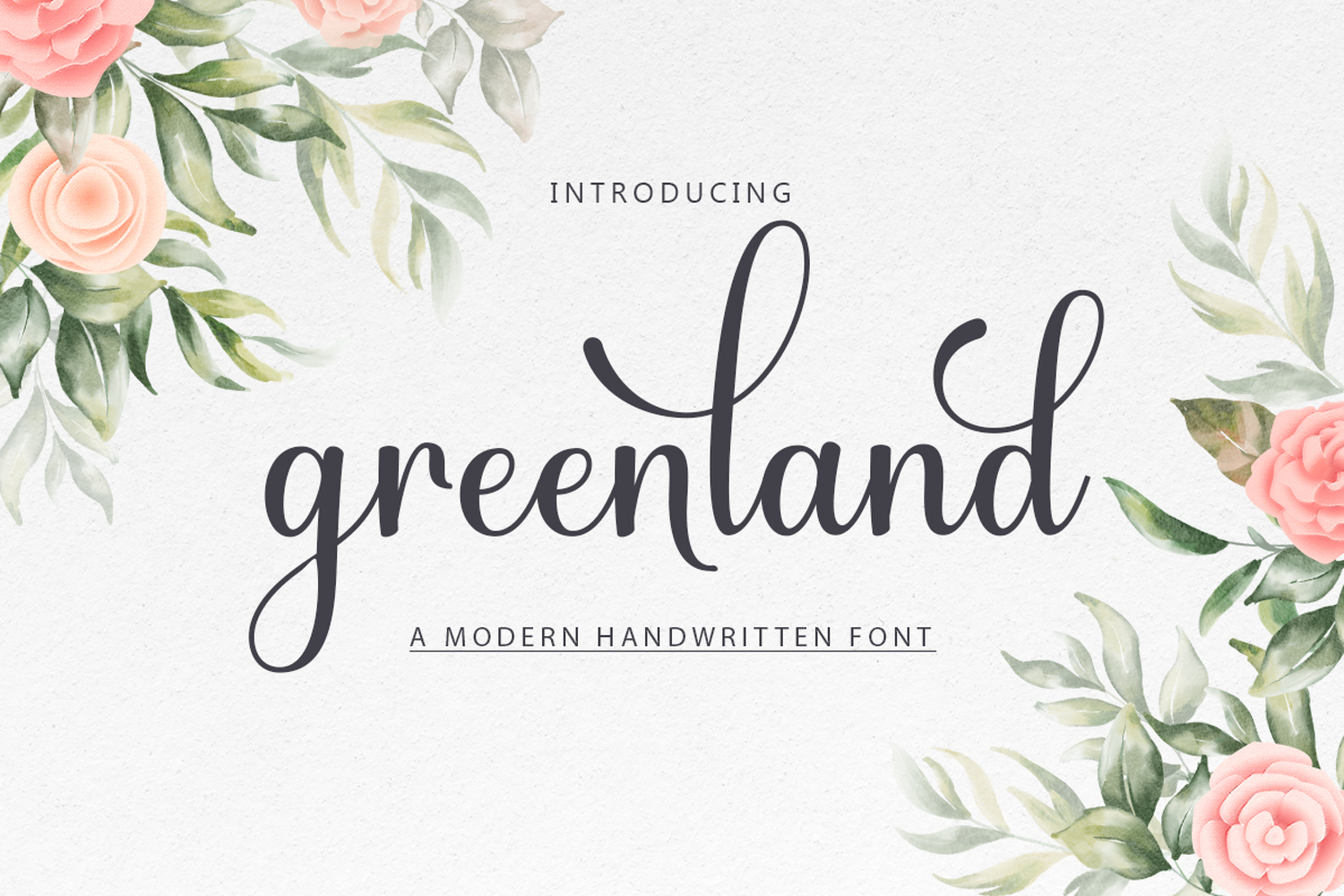
Greenland Script
Greenland script is a smooth, elegant and flowing handwritten font. It has a beautiful and balanced character and as a result, fits into a wide set of designs. Greenland script features varied baselines, smooth lines, beautiful glyphs, and stunning alternatives. Add to your most creative ideas and watch how they come to life!